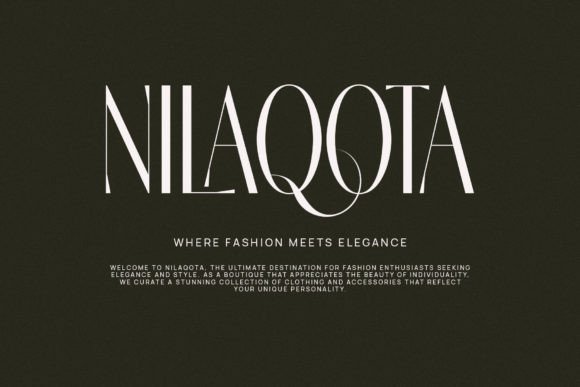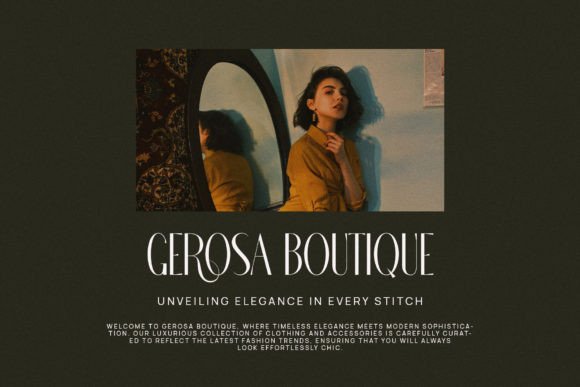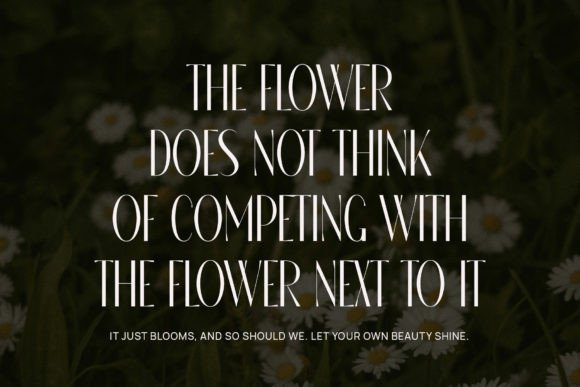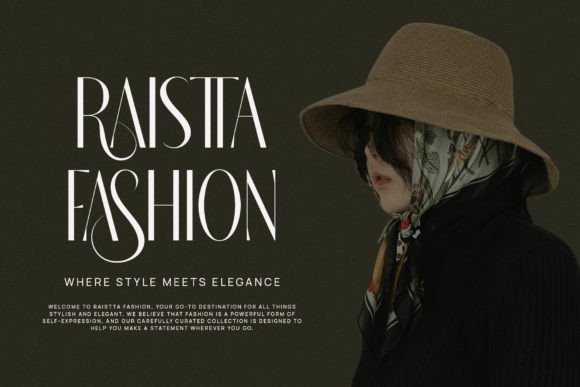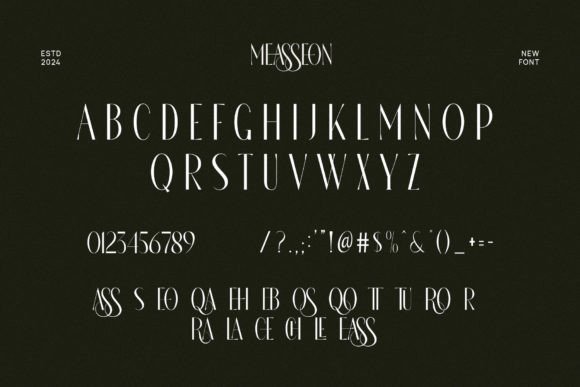
Introduction to Measseon Font
Measseon is a stylish serif typeface exuding sophistication and charm.
Its refined letterforms and subtle details capture attention, making it perfect for editorial design, branding, and luxury packaging With a timeless elegance and versatile presence, Measseon elevates any project with its distinctively classy aesthetic.
Key Features of Measseon Font